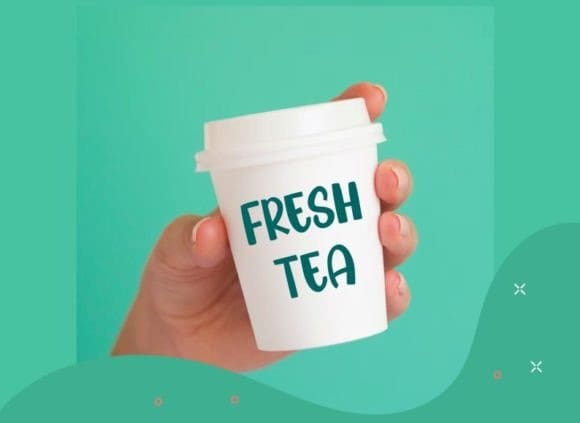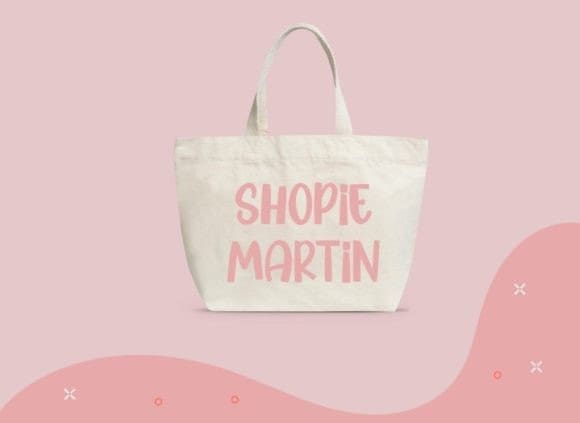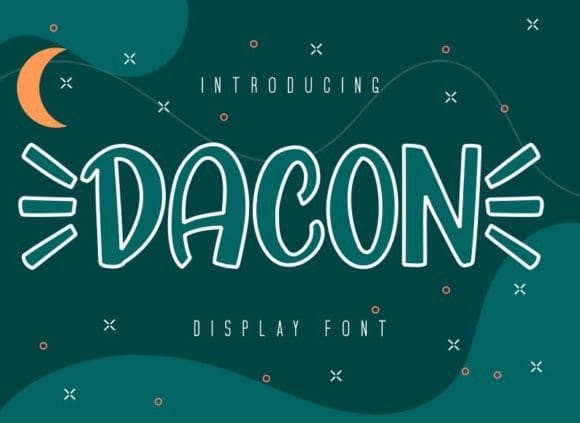
Dacon Display Font
Dacon Display Font is a cool, cute, and thick lettered display font. It is defined by smooth curves and is perfect for fashion branding or editorial designs. Add it confidently to your projects, and you will love the results.
Dacon Display is a fun and charming handwritten font. Whimsical and a bit quirky, this font will brighten up each of your designs. Add it confidently to your projects, and you will love the results.